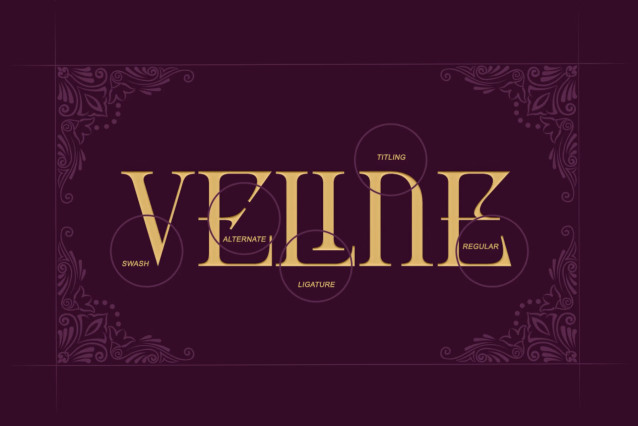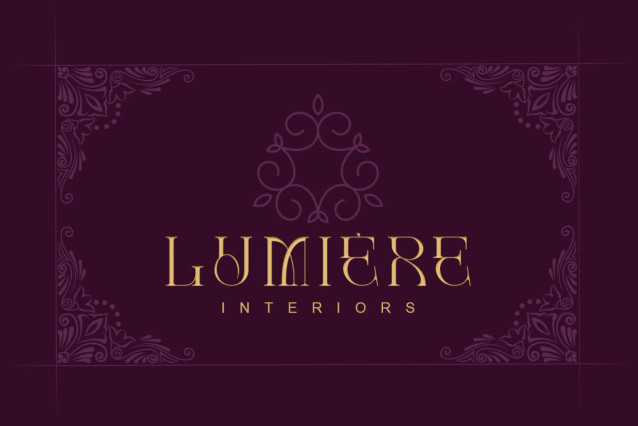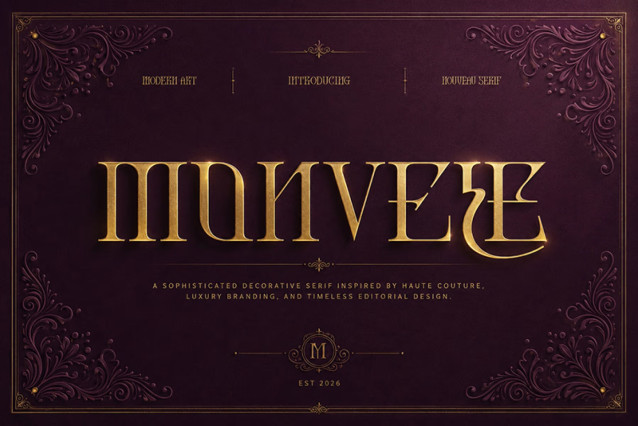
Monvele Luxury Serif Font
Monvele is a luxury decorative serif font inspired by Art Nouveau, haute couture, and timeless editorial design. Featuring alternates, swashes, titling characters, ligatures, numerals, punctuation, and multilingual support, it is perfect for elegant logos, fashion branding, cosmetics, skincare packaging, perfume labels, wedding invitations, magazines, and premium visual identities.